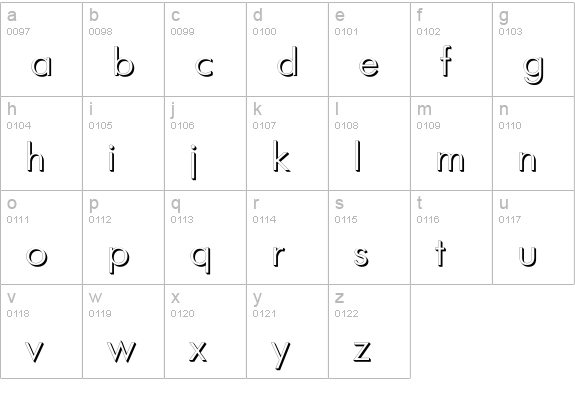
PT FuturaFuturis Volume Cyrillic Font Details
The PT FuturaFuturis Volume Cyrillic font embodies a harmonious blend of modernity and elegance, perfect for projects that require a sleek and sophisticated touch. With its clean lines and geometric shapes, this font exudes a sense of contemporary style while maintaining a timeless appeal. The Cyrillic characters add a unique touch, making it suitable for a wide range of design applications. What sets PT FuturaFuturis Volume Cyrillic font apart is that it is not only visually striking but also easily accessible. This font is freely available to download at FontsMarket.com, allowing designers and creatives to incorporate its distinct aesthetic into their projects with ease. Whether you're working on branding, editorial design, or web graphics, this font is sure to elevate your work and leave a lasting impression. Unlock the potential of your designs with the PT FuturaFuturis Volume Cyrillic font and experience the seamless fusion of tradition and innovation at your fingertips. Download it for free today and let your creativity soar.